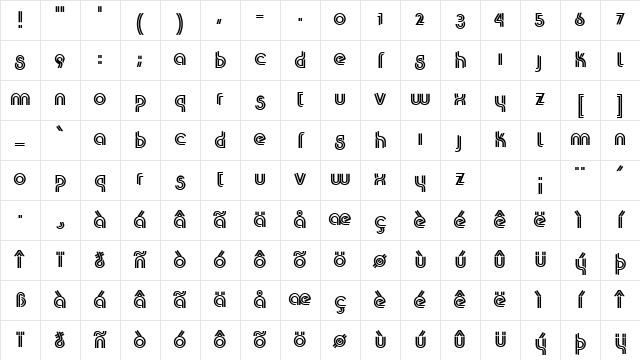
K22 Plural Regular
Designer: Vicente Rojo, Toto
Design Context for K22 Plural
K22 Plural is a composed and adaptable typeface that performs quietly and consistently across a wide range of design contexts.